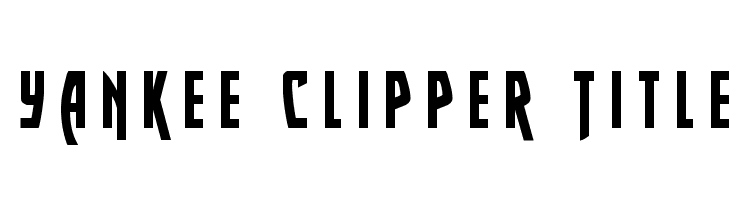
A bold, expanded, and italicized font with a futuristic and angular design.
A bold, 3D geometric font with a futuristic style.
A modern, narrow font with a gradient and dotted pattern.
A decorative font made up of quirky cartoon people and scenes.
An elegant script font with fluid, interconnected strokes and ornate flourishes.
A cursive, handwritten-style font with elegant, flowing strokes.
A bold, decorative font with an organic, textured design featuring irregular holes.
A bold, geometric font with characters enclosed in hexagons, offering a modern and decorative style.
A futuristic, geometric font with sharp angles and clean lines.
A modern calligraphy font with elegant, flowing cursive letters.